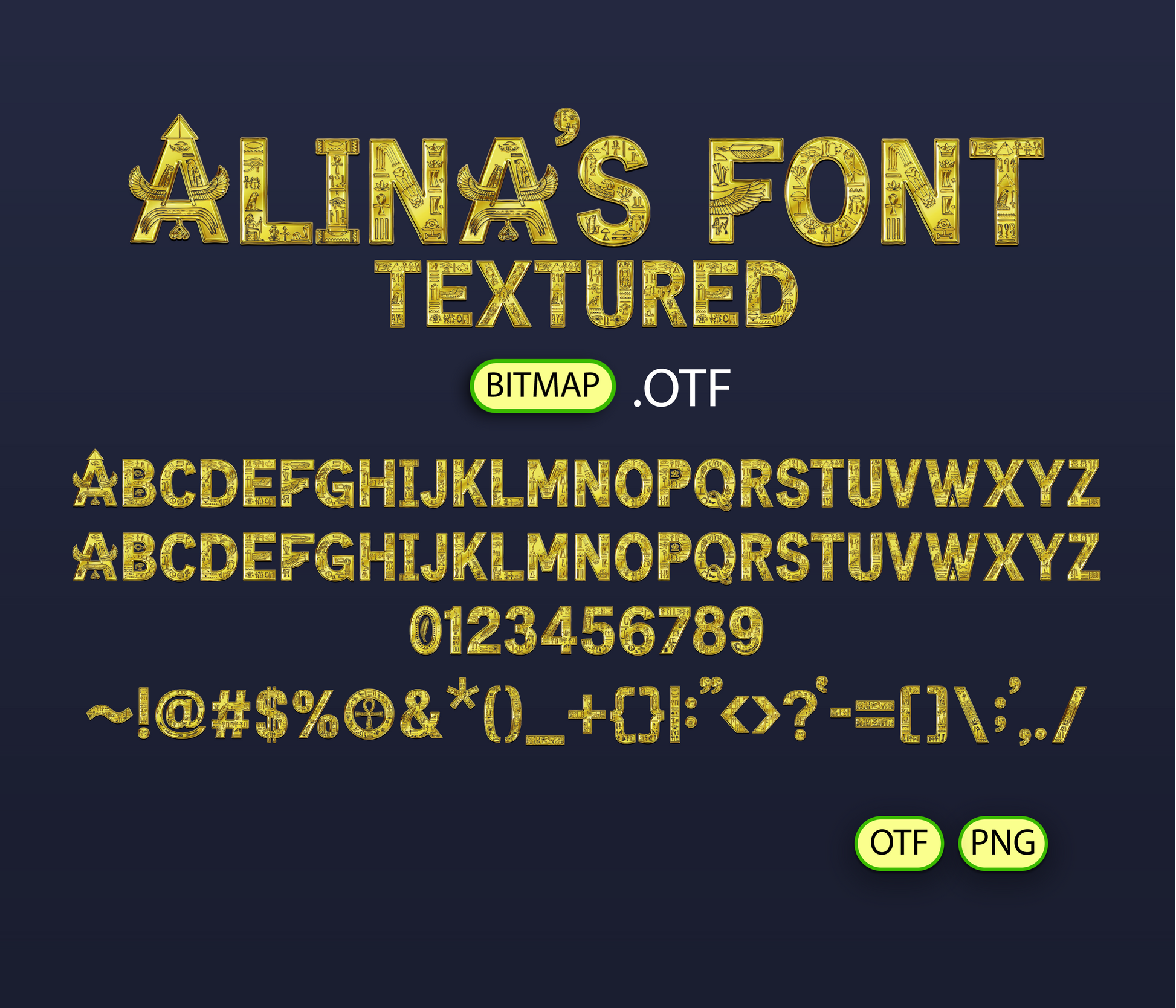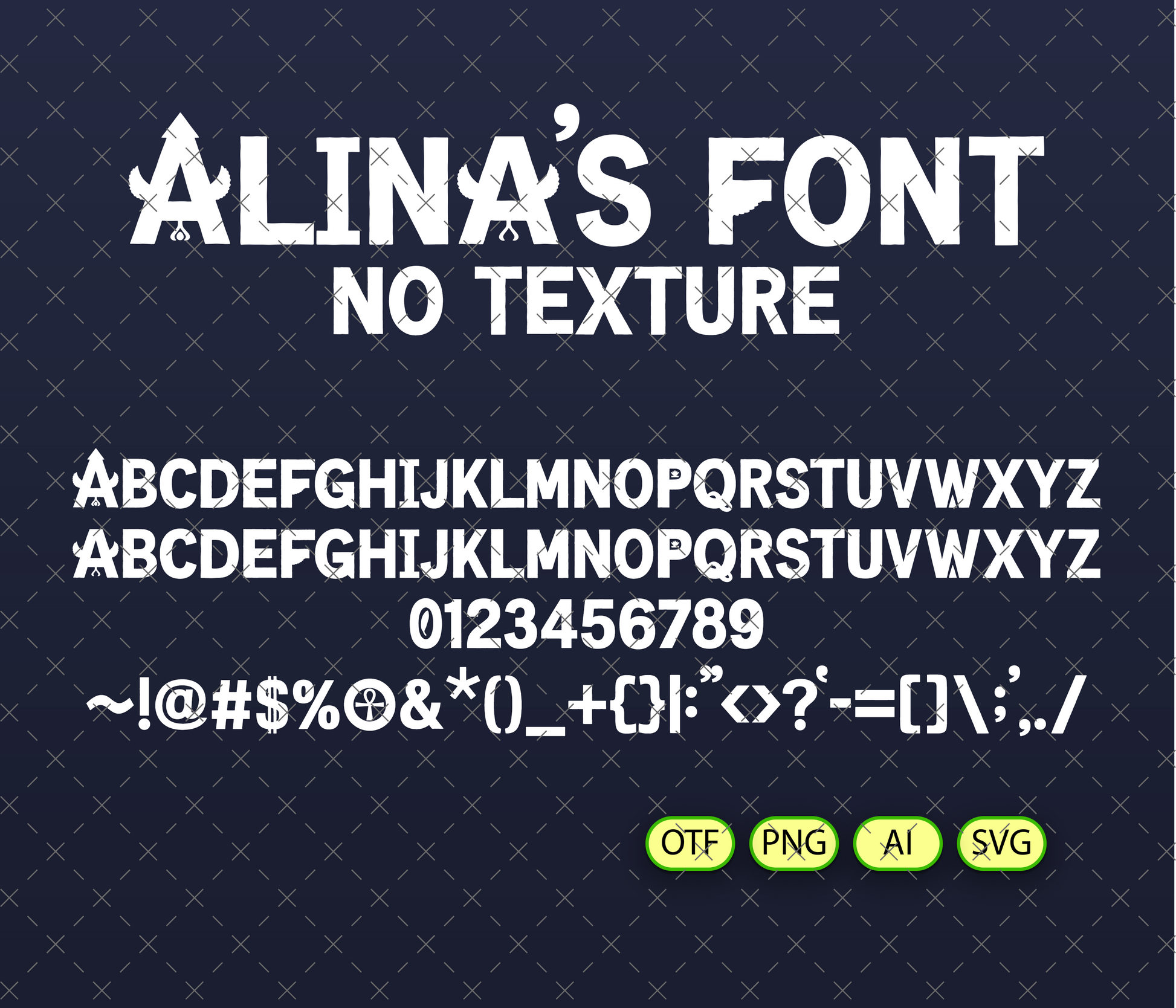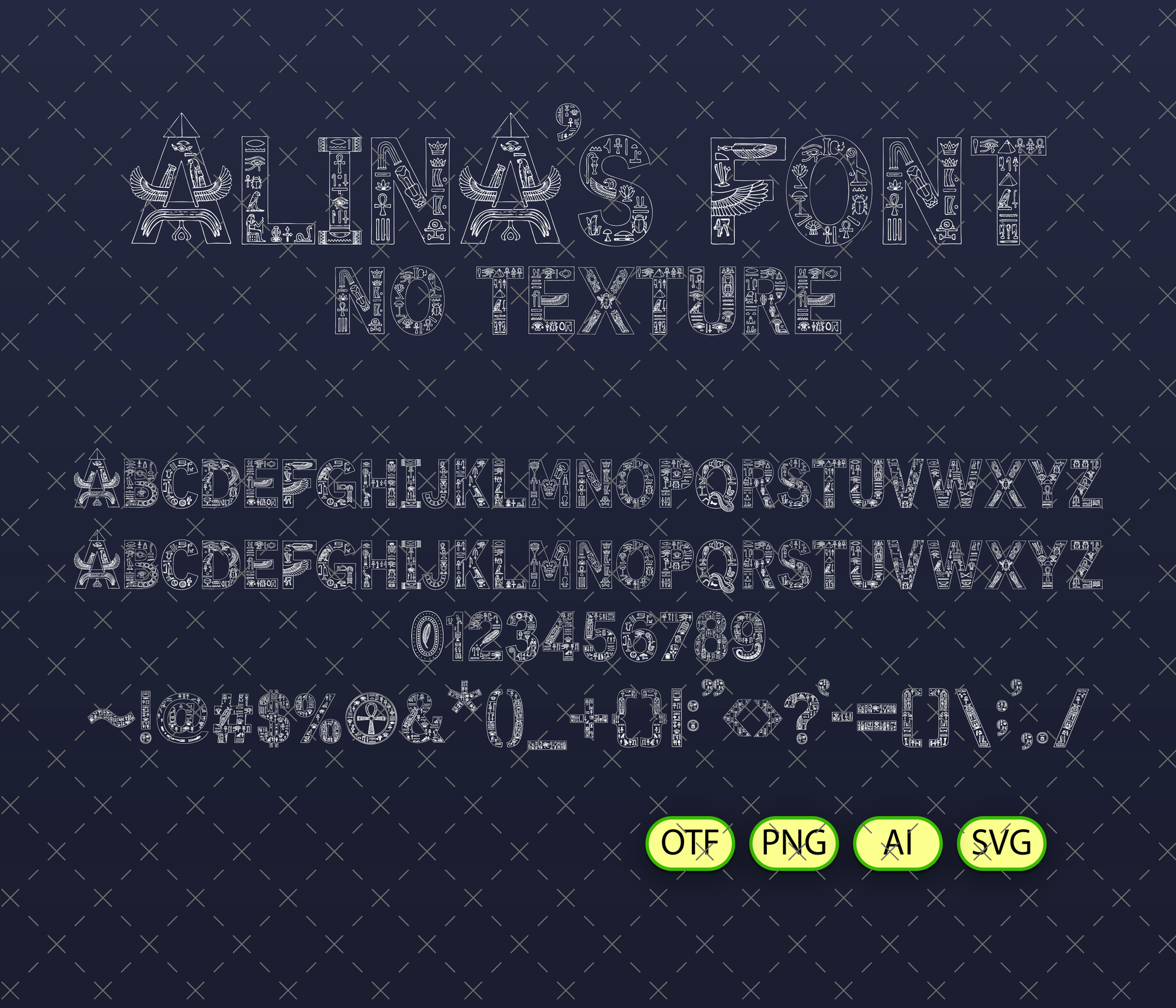
Desert Nomad Font Textured
Venture into the sweeping landscapes of ancient desert kingdoms with our Desert Nomad Font Textured, capturing the essence of sand-carved legends and dune-era grandeur. Perfect for history enthusiasts, themed event planners, content creators, and creative professionals, this font brings the bold, timeless spirit of wandering empire stories to your projects. Create eye-catching invitations, merchandise, or digital content with the dramatic energy of lost civilization narratives.
Striking Typography for Heritage Design & Cultural Projects
Our Desert Nomad Font Textured features powerful, expressive letterforms with sun-scorched stone textures reflecting the world of roaming tribes and crumbling citadel settings.
- Event Promotions: Design compelling invitations, posters, and banners for archaeological exhibitions, heritage conventions, and gatherings that honor the spirit of vanished civilization spectacle
- Merchandise Design: Ideal for t-shirts, posters, stickers, and accessories that highlight the rugged aesthetic of nomadic culture themes
- Digital Media: Elevate websites, blogs, and social media with commanding headers and graphics that evoke the wonder of forgotten realms
- Creative Content: Bring genuine character to historical artwork, educational designs, and creative projects inspired by desert wanderer tales
- Personal Projects: Channel ancient energy into scrapbooking, DIY crafts, and home decor inspired by the world of mythical nomad characters
Many seek an online font generator to replicate the appearance of the Desert Nomad Font. Think twice! No generator can rival the craftsmanship of our font, which comes in a clean outline version perfect for cutting machines.
Our font honors the world of ancient civilization stories and lost expedition discovery, empowering your projects with its bold and timeless spirit. Whether crafting educational materials, designing themed products, or adding a historical touch to personal projects, this font communicates the vibrant essence of nomadic adventure. Ready to breathe ancient mystique into your creations? This font is your gateway to eye-catching, impactful design.